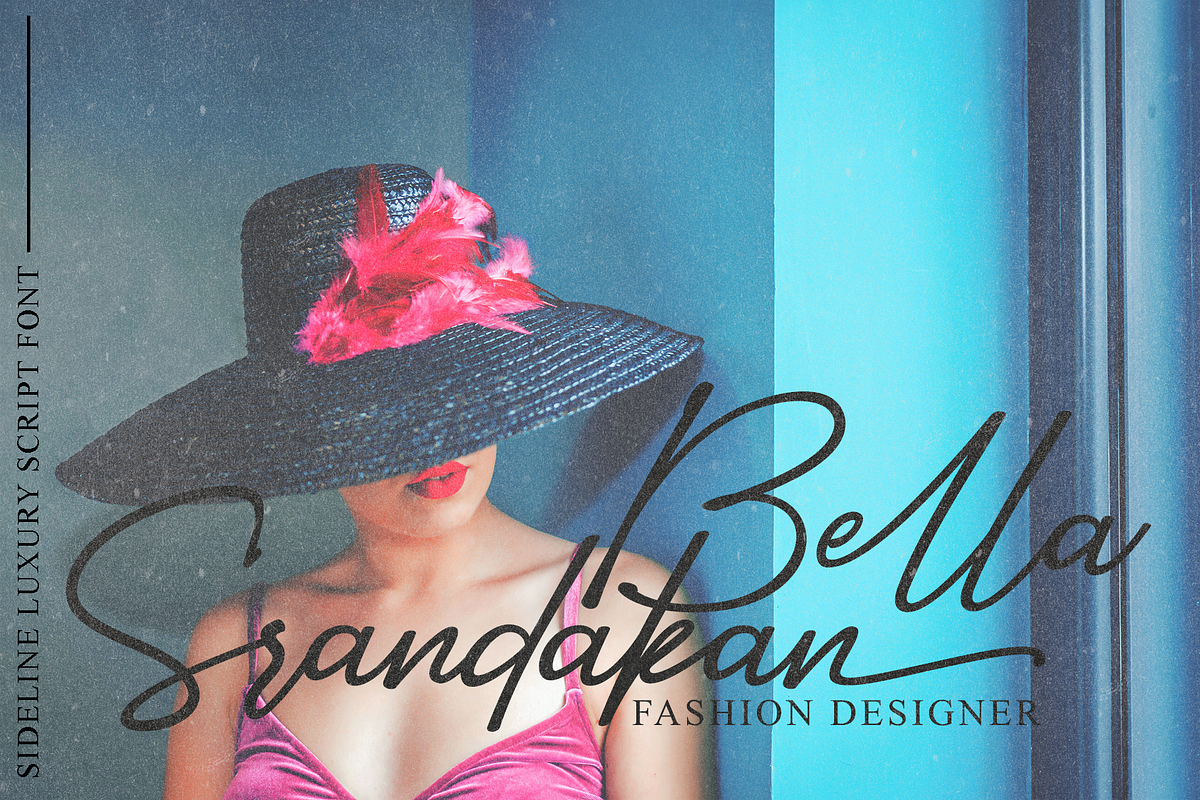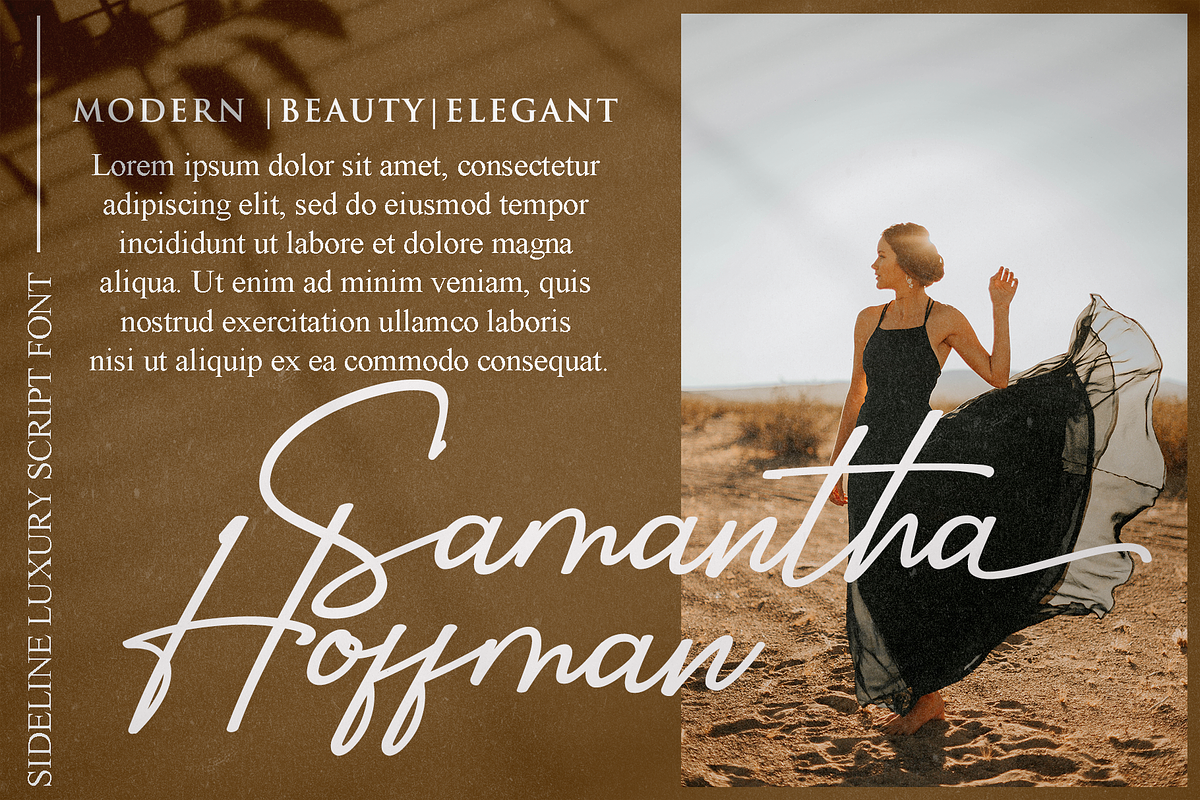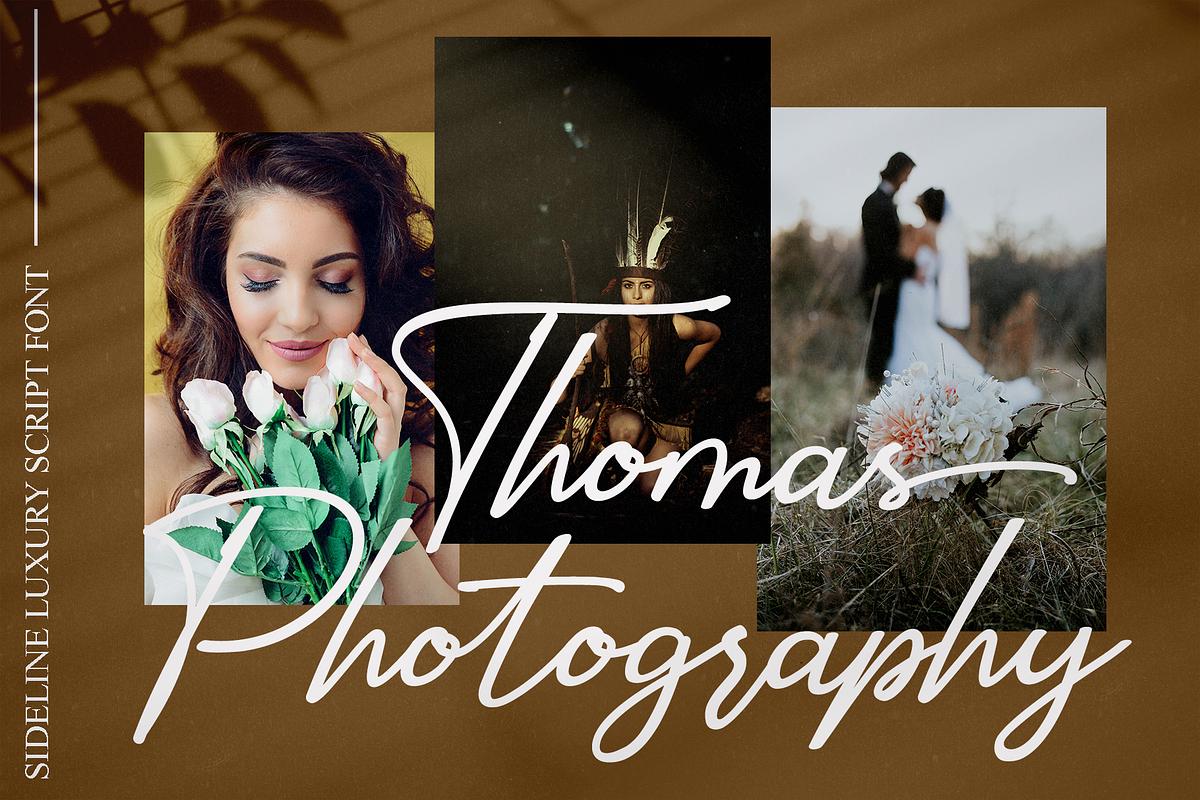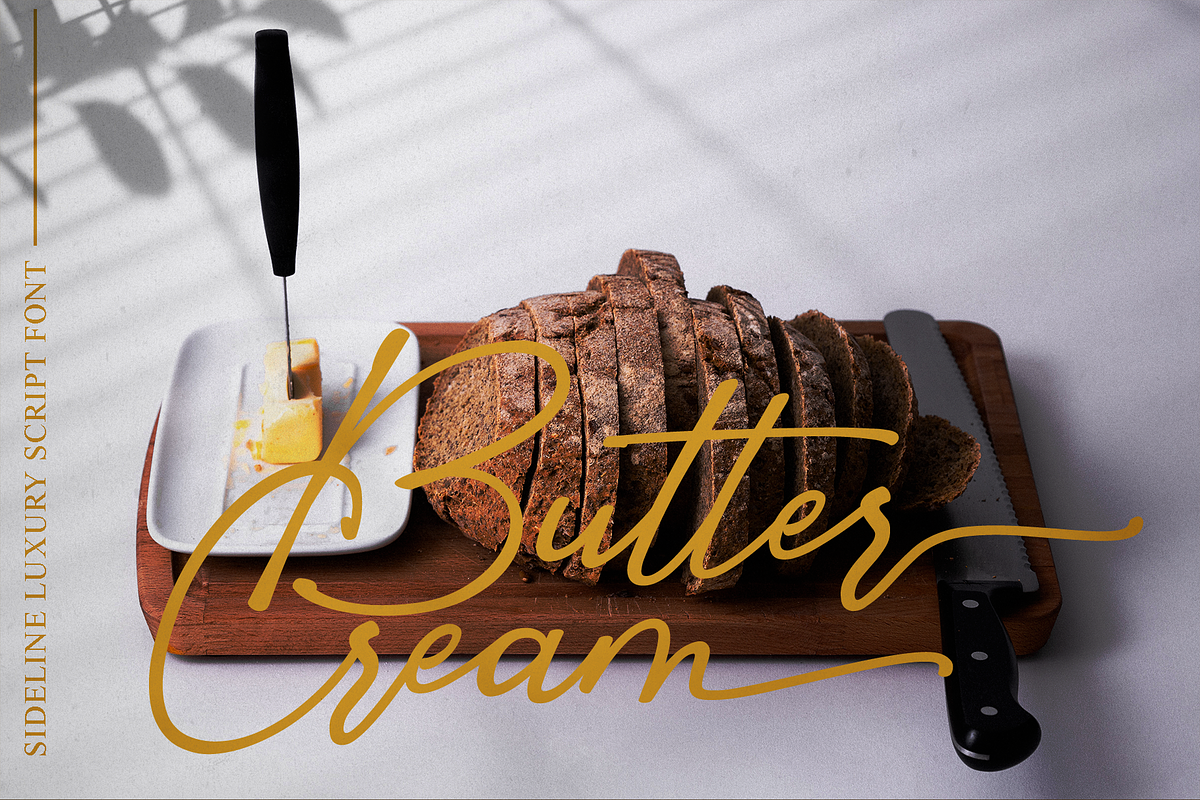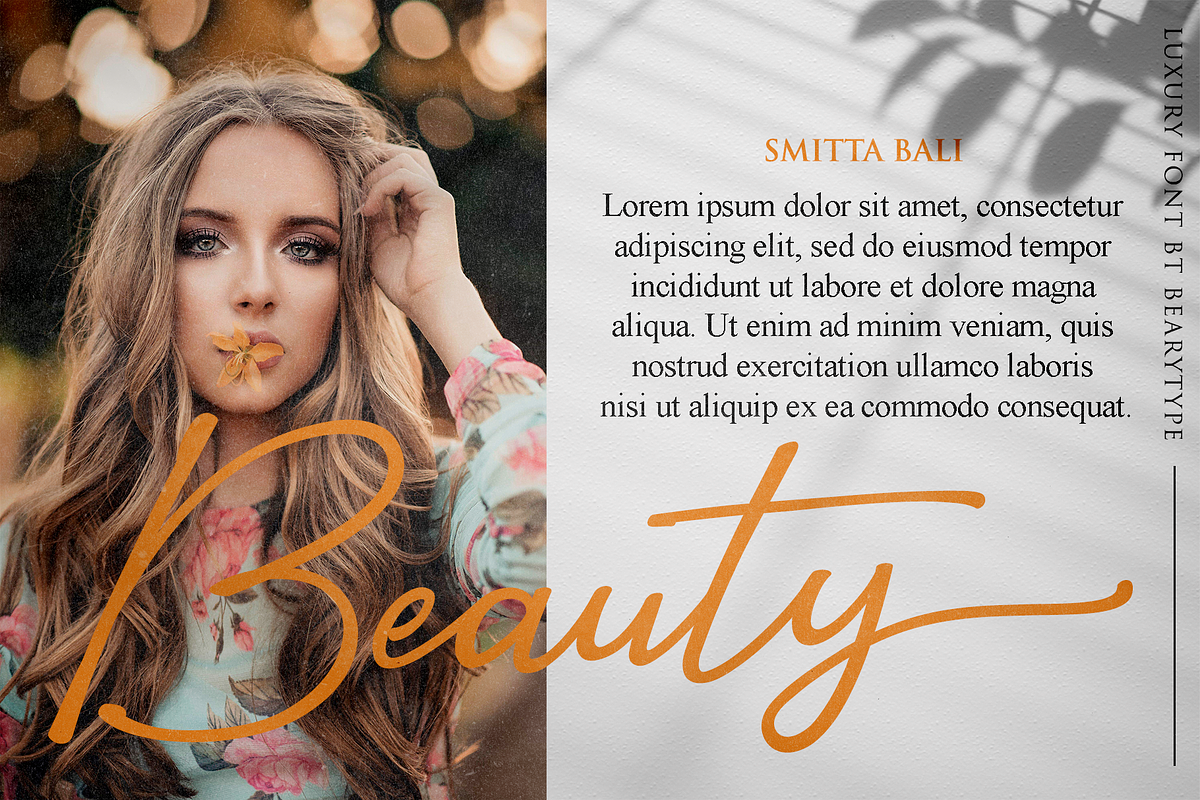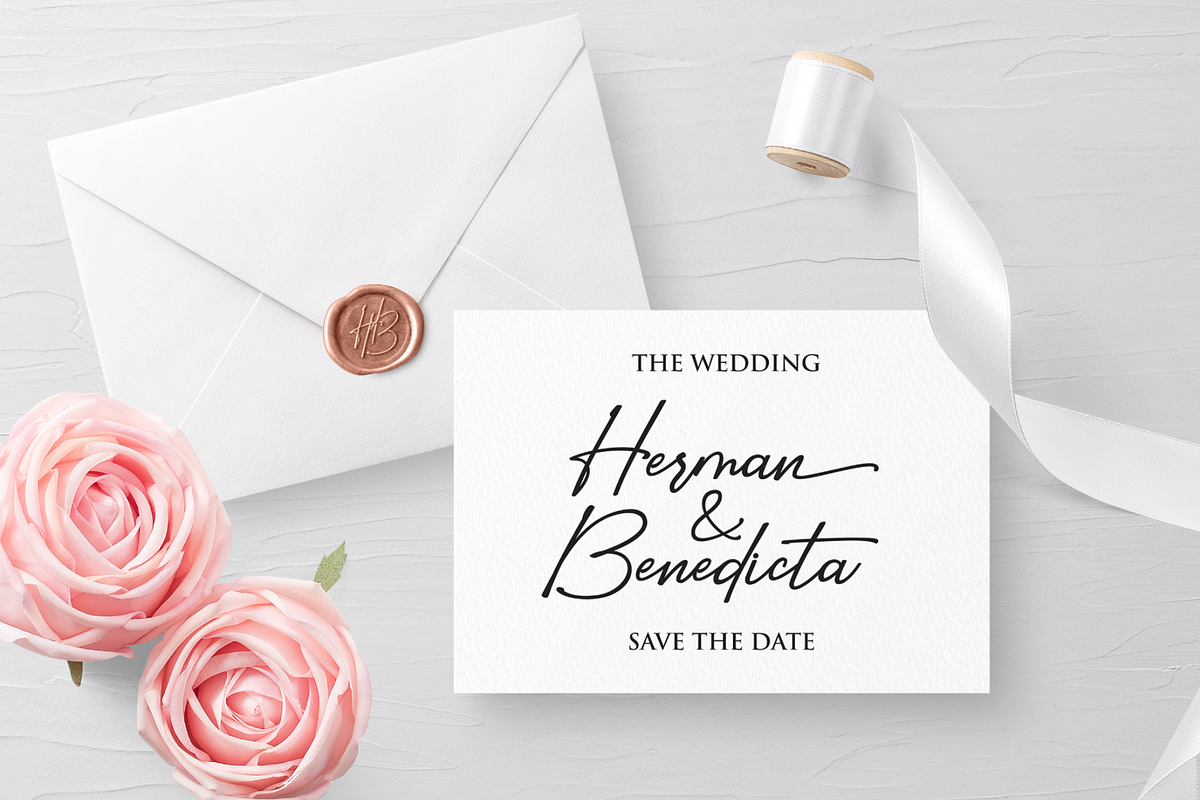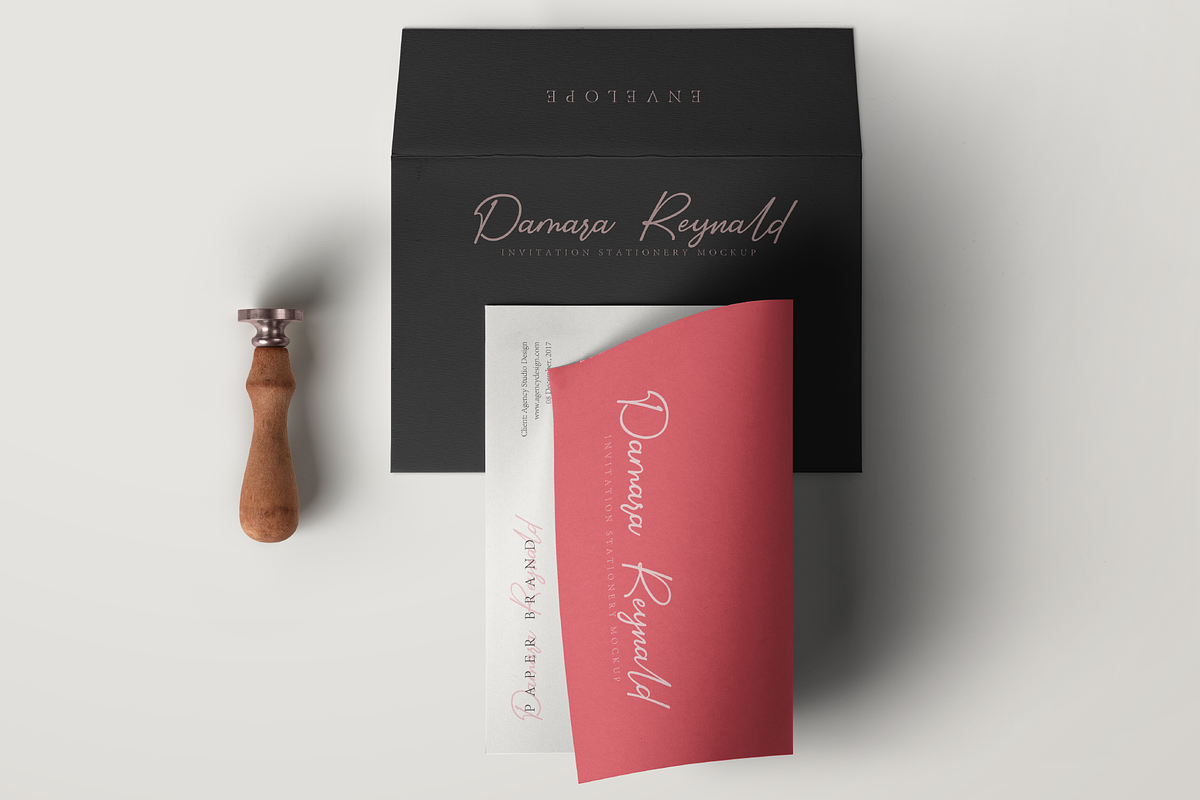
Sidelines // Luxury Signature Font
Introducing, Sidelines. Amazing hand lettering look attractive and natural! Every single letters have been carefully crafted to make your text looks beautiful. This font is suitable for invitation, branding, advertising, classic design, poster design etc. Font is PUA encoded so you can access extras from character map in most design software.
Sidelines // Luxury Signature Font by BearyType Studio fits naturally into Branding, posters, packaging, typography.